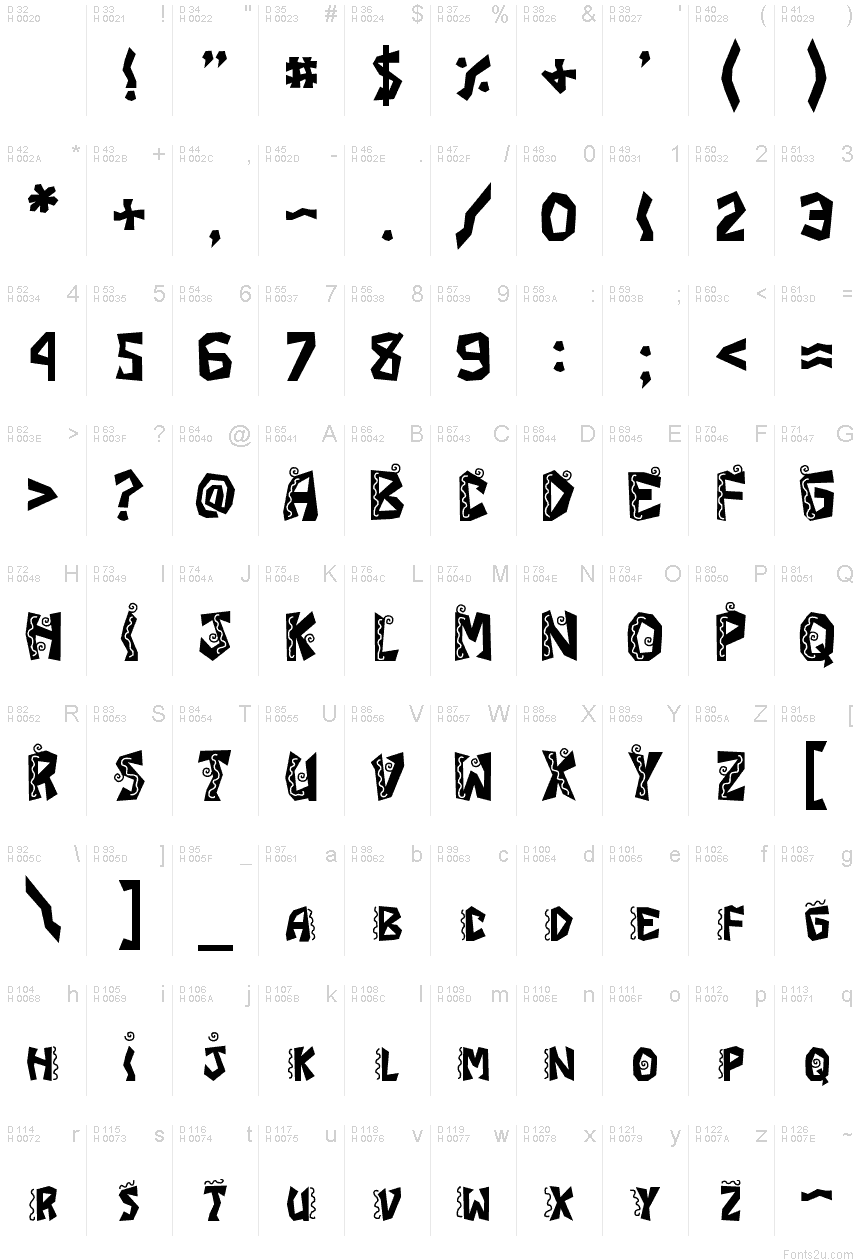
JI Chimichanga
JI Chimichanga font by Jeri Ingalls is a free decorative display typeface that brings loud, sizzling energy to any layout. Its chunky, uneven letter shapes, twisty inner squiggles, and playful spiral accents feel like hand-cut paper signs taped up in a bustling street-food stand-bold, messy, and full of flavor.
Using JI Chimichanga, you can instantly spice up taco-night flyers, food truck branding, fiesta invitations, kids’ party posters, summer festival graphics, and quirky menu headings. This free font thrives at big sizes where its inky wedges and wavy lines can really dance; pair it with a clean, understated sans serif for body text to keep things legible while the headline does the shouting.